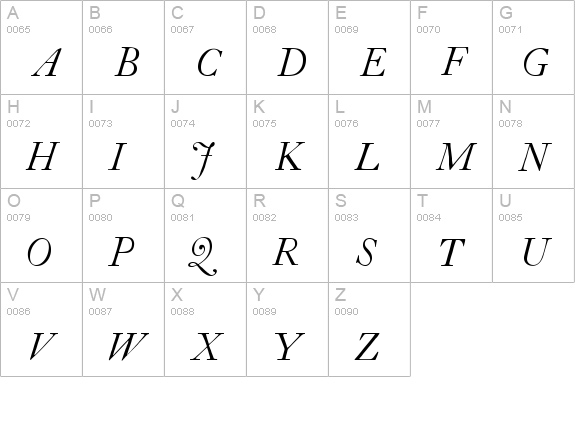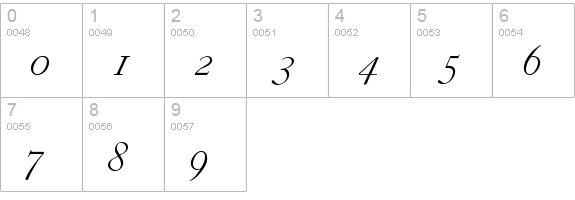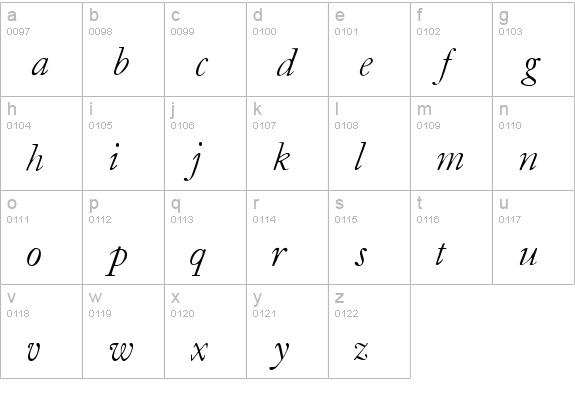
CaslonHW-Italic Font Details
CaslonHW-Italic is a distinctive, italic variant in the CaslonHW typeface family \xE2\x80\x94 well suited to design and typography projects.
CaslonHW-Italic is a classic and elegant font that exudes sophistication and timelessness. Its slanted design adds a touch of flair and style, making it perfect for conveying a sense of luxury and refinement in your projects. The delicate curves and intricate details of CaslonHW-Italic make it a versatile choice for a wide range of design applications, from invitations and greeting cards to branding and packaging. What makes CaslonHW-Italic even more appealing is that it is available for free download at FontsMarket.com. This means you can easily access this beautiful font and incorporate it into your designs without any cost. Whether you are a professional designer or someone looking to enhance their creative projects, CaslonHW-Italic is the perfect choice for adding a touch of sophistication and elegance. Download it today and elevate your designs with this timeless and exquisite font.